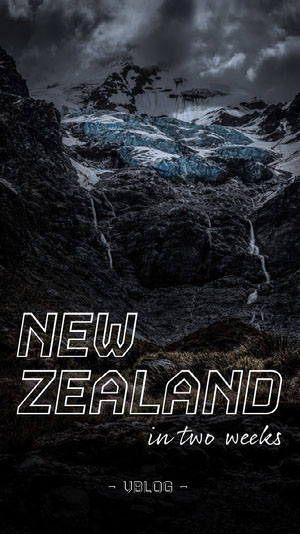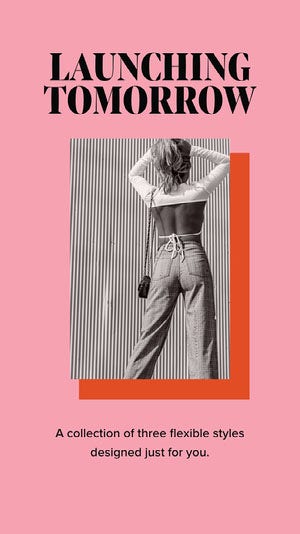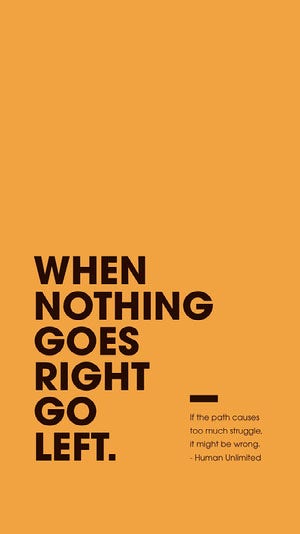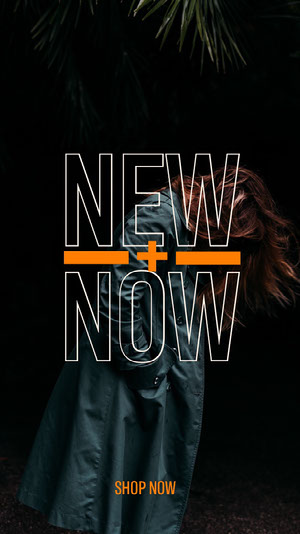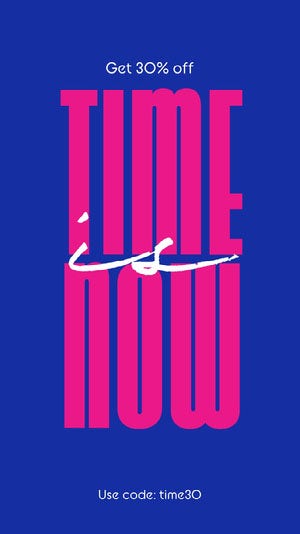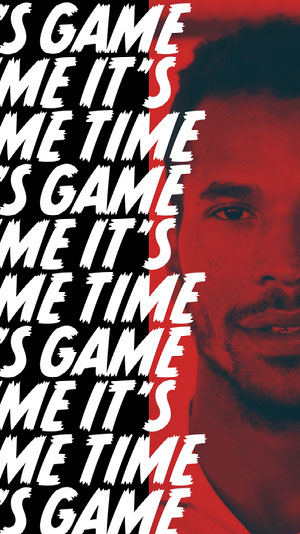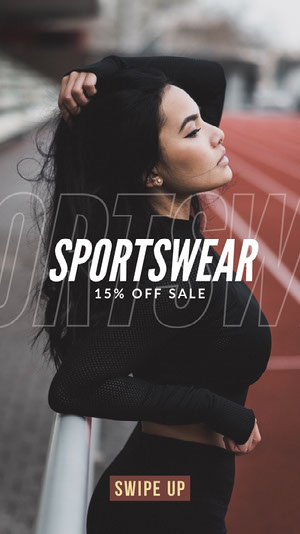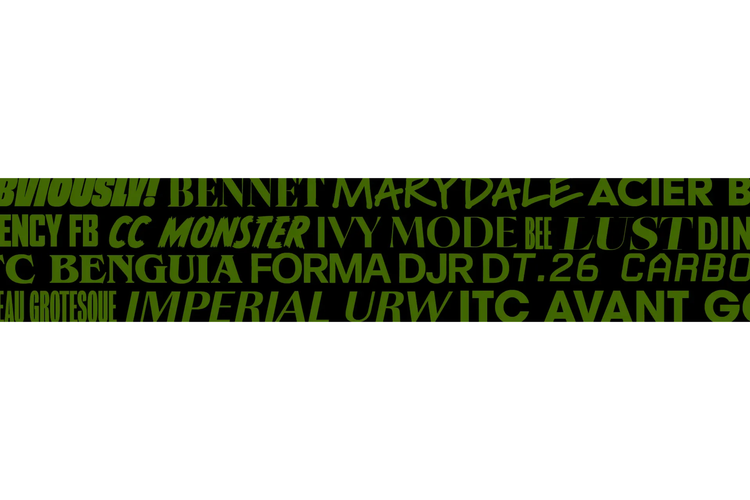
50 Modern fonts to jumpstart your contemporary look
Get started creating from the best modern and contemporary fonts.
Summary
Free Modern fonts
Adobe Fonts is a treasure trove of incredible modern fonts. Let’s take a look at some of the free fonts (and great templates) that are on offer.
For a flexible, clean and corporate look, try Lato Bold for a headline or Lato Regular for body copy as seen in the “Corporate Brand Guidelines” template below. Looking for a modern serif for your next branding project? Cantata One is clean and great for medium to large font sizes such as logos. It evokes a feeling of clean luxury. Select the “Herbert Apparel” template to start customizing.
Modern font examples (Templates L>R)
Lato Bold
League Gothic
League gothic italic
Source Sans Pro + Raleway
Bebas Neue + Floor
Myriad Hebrew + Raleway
Cantata One
Bellfort
Playfair
Source Sans + Lora
League Gothic + Lato Bold + Bebas Neue
Bebas Neue + DIN ENGSchrift LT Pro
Local Brewery Four
Raleway (heavy) + Economica
Bold Modern fonts
Make an impression with these bold and unembellished sans serifs. Short, succinct messages like quotes or sale announcements are a great place to start with these fonts. Try pairing a bold condensed font for your main text with one accent word using a wide script font. Remix the “High Five” template below which pairs Agency FB with Shabby Chic for a fun mix of modern and hand-drawn type. Alternatively, use bold type as a pattern as shown in the Blue “Swipe Up” template below. Add some text animation for a fun bit of motion (available on the Adobe Express mobile app). Choose any of the templates below to get started.
Example contemporary fonts (Templates L>R)
Agency (Regular Condensed) + Shabby Chic
Acier BAT Text + Mina
Nimbus Sans + Shabby Chic
Titling Gothic FB Skyline
Forma DJR Deck (Light)
Atrament (Bold Italic)
Ohno Blaceface
Modern Sophisticated fonts
If you’re looking for something with a bit more personality while still keeping your design clean and contemporary, here are some great serifs and san serifs to play with. Try using them for headlines, announcements, logos, social media travel stories and more. Pair a serif font with lots of personality like Lust (seen below in the “Decadent Treats” template) with a simple sans serif like Ariana Pro. This way you create a hierarchy of importance of information in your design and allow your followers to more easily digest its content.
Examples Sophisticated fonts (Templates L>R)
Bennet Banner (extra condensed black) + Proxima Nova
Lust + Carbon
Ivy Mode (semi bold) + Ivy Mode Italic
Civane (NorMed) + Tisa Sans Pro
Madrone Standard + Metallophile SP8 (light)
Lust + Ariana Pro
Alverata
Gastromond + Bureau Grotesque (condensed med)
Benguiat Pro ICT (Med) + Benguiat Pro ICT (Book)
Clean Modern fonts that are versatile
Sometimes you just need an all-round multi-purpose versatile font that can be used easily and doesn’t detract from your design but instead, adds to its simplicity.
Try Acier BAT as shown in the “Succulent” template or Antarctican (with an outline effect) as in the “New + Now” template. Another great thing to do with simple type is to play with type cases. Mix headlines that are all in uppercase with sentence case sub-headers or vice versa.
Remix the templates below to start your design.
Example Clean fonts (Templates L>R)
Acier BAT Text (Solid) + Carbon (regular)
Archivo Black + FF Market
ITC Avant Garde Pro (Bold) ITC Avant Garde Pro (BK)
Antarctican Headline (medium)
DIN ENG schrift LT Pro + Shabby Chic
Modern Organic fonts - Handmade
Script, brush and hand-written fonts are a great way to add an organic, homemade softness to your design. Paired with a sans serif or all on its own, these handcrafted fonts are perfect for your next fashion, travel, or typographic design.
Luxus Brut is a great calligraphy font, perfect for the modern traveler. Remix the “Hello Portugal” template below to see which fonts pair well. If you’re looking for something bolder and more hand-written, try Marydale for a large quote as seen in the “Dress Like A Legend” template below.
Example Organic fonts (Templates L>R)
Luxus Brut (Regular) + Ariana Pro (Medium)
Professor + P22 Stickley Pro Headline
Marydale (Black)
Eds Market Bold Slant
Beloved Script (bold) + Agency FB (Light) + Continuo + Beloved Sans (Bold)
Vervine (Regular)
Mina (Regular) + Metallophile Sp8 (Medium + Light)
Sporty Fonts & Spicy Fonts
With such a bounty of excellent sporty fonts, we couldn’t resist highlighting these strong and sassy fonts for your next athletic-inspired project. CC Monster Mash is a strong italicized brush font that means business. See the “It’s Game Time” template below for inspiration on how to use it as a pattern. Abolition is a classic collegiate style font with a good selection of style options. Try mixing Regular with Soft Oblique as seen in the “Game 01” template below.